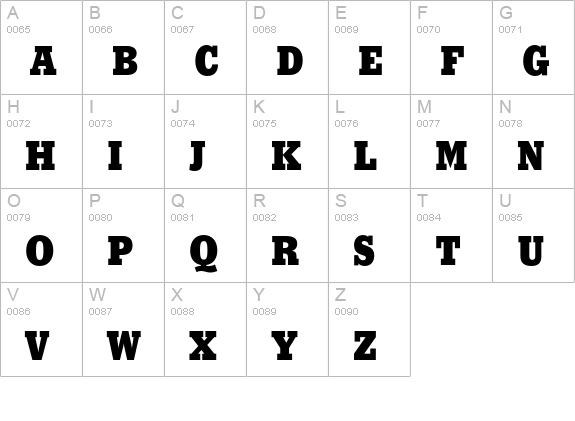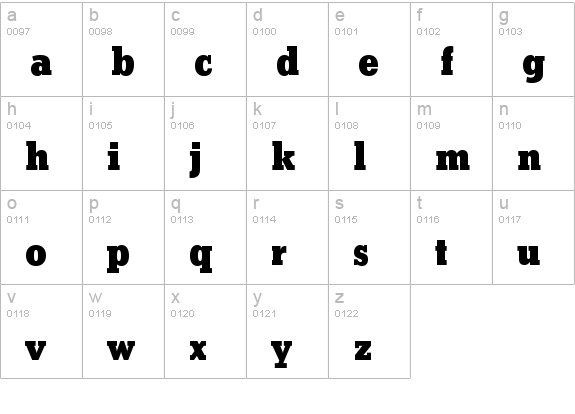
Stymie Extra Bold is a strong, high-contrast variant in the Stymie typeface family \xE2\x80\x94 well suited to headlines, attention-grabbing titles, and strong calls-to-action.
Stymie Extra Bold font is a bold and impactful typeface that commands attention with its strong and sturdy appearance. Perfect for headlines, titles, and branding projects, this font exudes confidence and modernity. The thick strokes and sharp angles give it a bold and dynamic presence on the page. What's even better is that Stymie Extra Bold font is available for free download at FontsMarket.com. This means you can easily access this versatile and eye-catching font for your design projects without any cost. Take advantage of this opportunity to elevate your designs with the striking Stymie Extra Bold font.